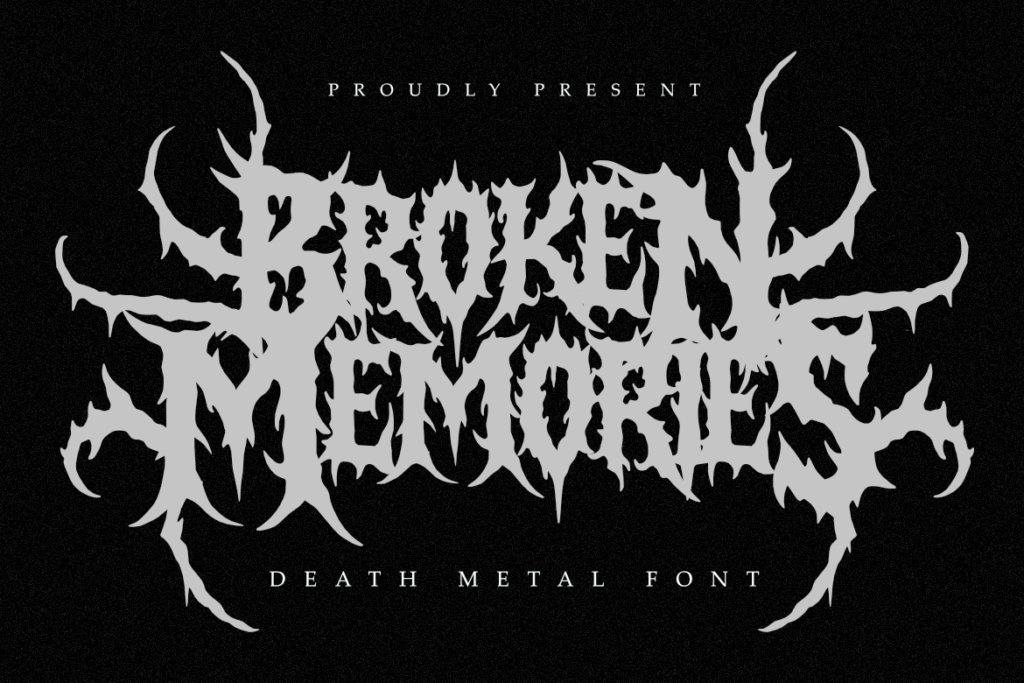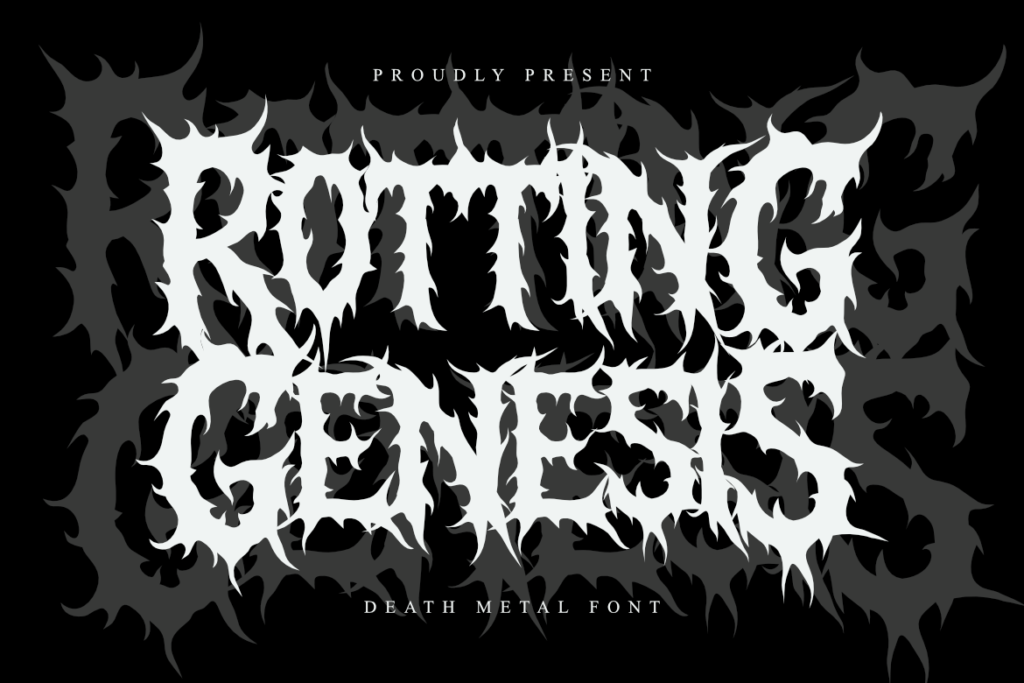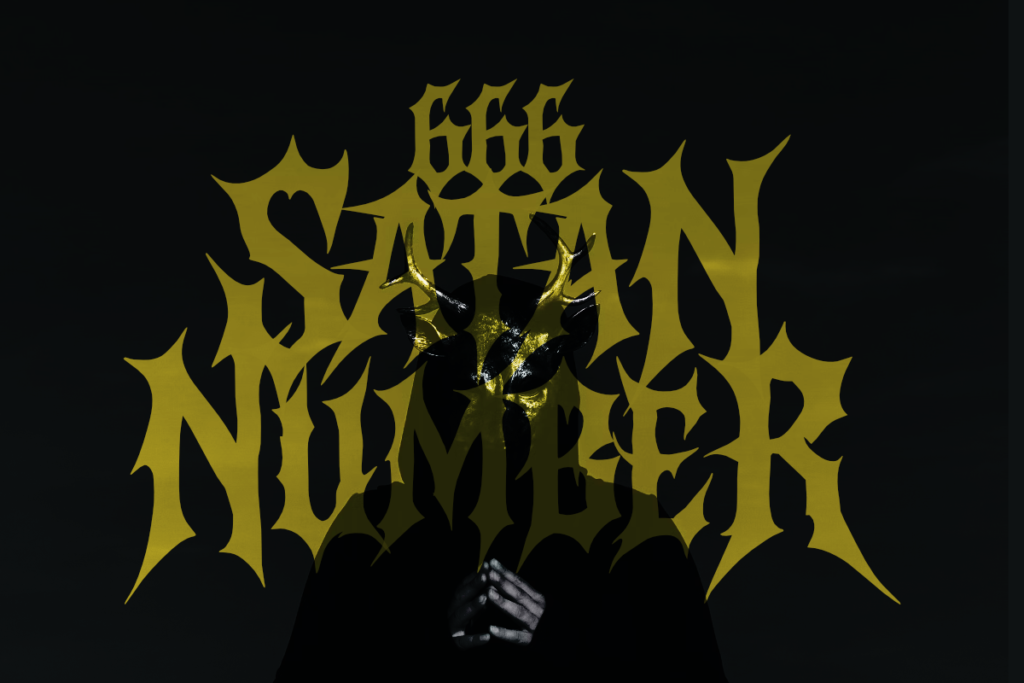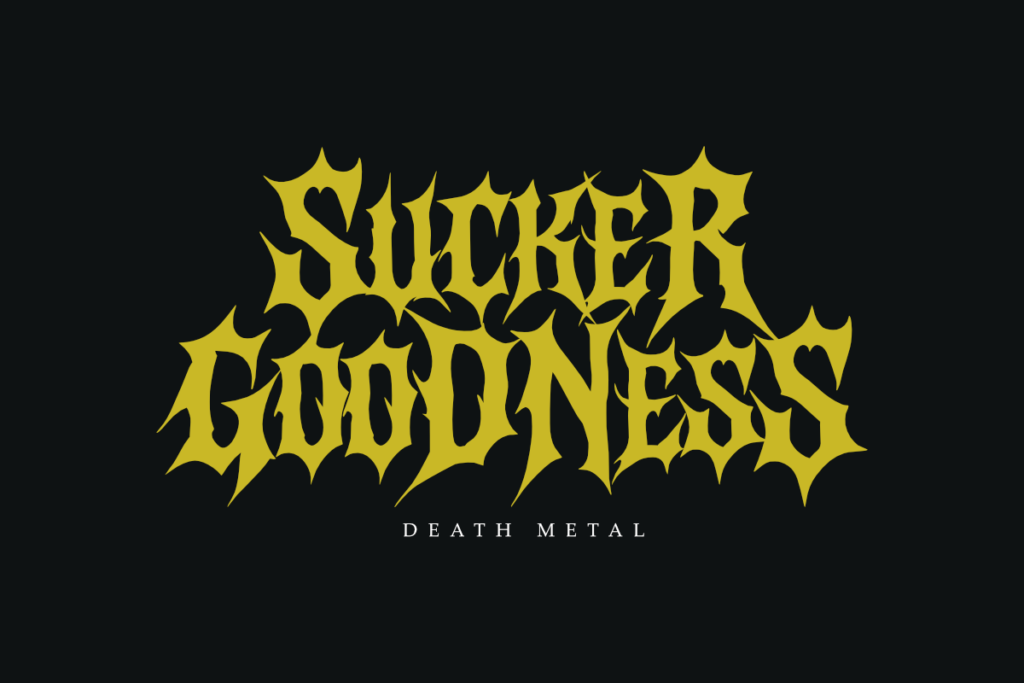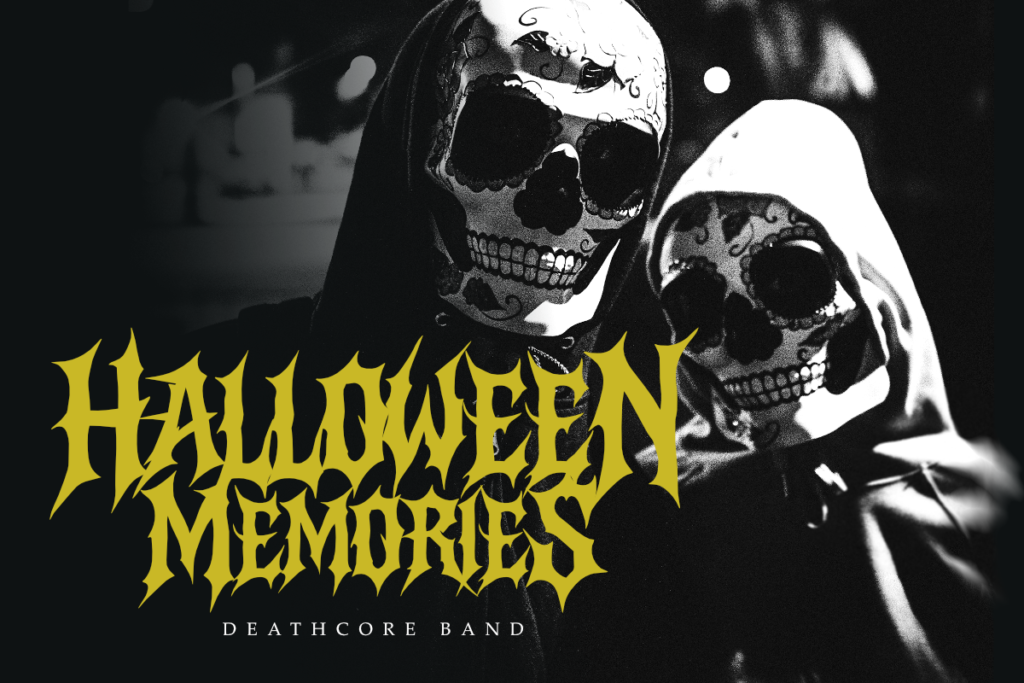
Display typeface · Latin
Darkhusk
Brutal Death Metal Font for Band Logos, Album Covers & Extreme Branding Darkhusk is a raw, organic, and brutally detailed death metal font crafted for the darkest designs. This display font captures the chaotic essence of underground metal music with razor-sharp spikes and tangled letterforms — perfect for extreme band logos, album covers, merch, horror posters, and anything that screams raw power. With natural curves and jagged edges, Darkhusk feels hand-drawn and chaotic, giving your work a gritty authenticity. Whether you're creating brutal logos, festival posters, or horror visuals, this font delivers unapologetic metal energy.